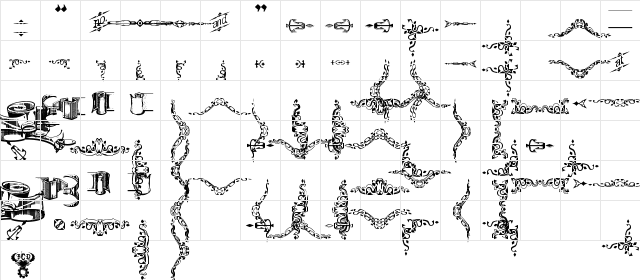
Deborah Extras/Ornaments Regular
Design Context for Deborah Extras/Ornaments
Deborah Extras/Ornaments is built around its visual character rather than neutral utility - its distinctive forms are designed to make an impression at display sizes.
Font Pairing: Pair with a clean neutral sans-serif for body copy to let Deborah Extras/Ornaments's character lead without overwhelming the composition.
Pro Tip: Use Deborah Extras/Ornaments exclusively at display sizes - it was designed to be seen, not read at length. Let a neutral companion handle body copy.